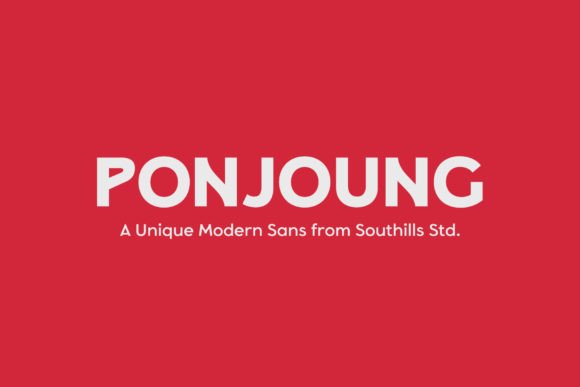
Introducing Ponjoung Font: Your Gateway to a World of Creativity
**Embark on a Typographic Journey Like Never Before**
In the vast realm of typography, there lies a font family that stands apart, beckoning you to explore the boundaries of creativity. Ponjoung Font, a masterful sans serif creation by Southills Studio, is your gateway to unleashing a world of visual wonders. Discover a font that redefines the meaning of versatility, seamlessly adapting to your every design endeavor. Whether you're a seasoned designer or a creative enthusiast, Ponjoung Font is your ultimate companion, ready to transform your ideas into tangible masterpieces.
**Unleash Your Inner Artist with Ponjoung's Unique Charms**
At the heart of Ponjoung Font lies a captivating fusion of modernism and playfulness. Its meticulously crafted letterforms exude a refreshing aura, inviting you to explore a realm of boundless possibilities. Each stroke, each curve, each angle has been meticulously designed to evoke a sense of joy and inspiration. With Ponjoung Font, you'll discover a font that ignites your imagination, urging you to push the limits of your creativity.
**Elevate Your Designs with Ponjoung's Unparalleled Versatility**
Whether you're crafting captivating campaign posters, designing elegant wedding invitations, or creating eye-catching social media graphics, Ponjoung Font is your trusted ally. Its inherent versatility effortlessly adapts to any project, becoming an extension of your artistic vision. From bold headlines that command attention to graceful body text that flows effortlessly, Ponjoung Font is the ultimate chameleon, seamlessly blending with your design aesthetic.
**Experience the Power of Simplicity in Ponjoung's Geometric Essence**
At its core, Ponjoung Font embraces the beauty of simplicity, drawing inspiration from the purity of geometric shapes. Its clean lines and crisp angles create a visual harmony that resonates with audiences. Each letterform, meticulously crafted with precision, exudes a sense of order and clarity. Yet, amidst this simplicity, Ponjoung Font retains a playful touch, adding a dash of whimsy that captivates the eye.
**Make a Statement with Ponjoung's Unique Accents**
What truly sets Ponjoung Font apart are its unique accents, carefully designed to add a touch of personality to your designs. These accents, like scattered jewels, adorn the letterforms, adding a layer of intrigue and visual interest. With Ponjoung Font, you'll never settle for ordinary typography again. Instead, you'll embark on a journey of self-expression, creating designs that leave a lasting impression.
**Embrace Ponjoung Font and Unlock Your Creative Potential**
Join the growing community of designers, artists, and creative professionals who have discovered the transformative power of Ponjoung Font. Let your imagination soar as you harness the font's versatility, simplicity, and playful charm. Whether you're a seasoned typographer or just starting your creative journey, Ponjoung Font is your key to unlocking a world of limitless possibilities. Experience the joy of creating with a font that truly understands your artistic vision.